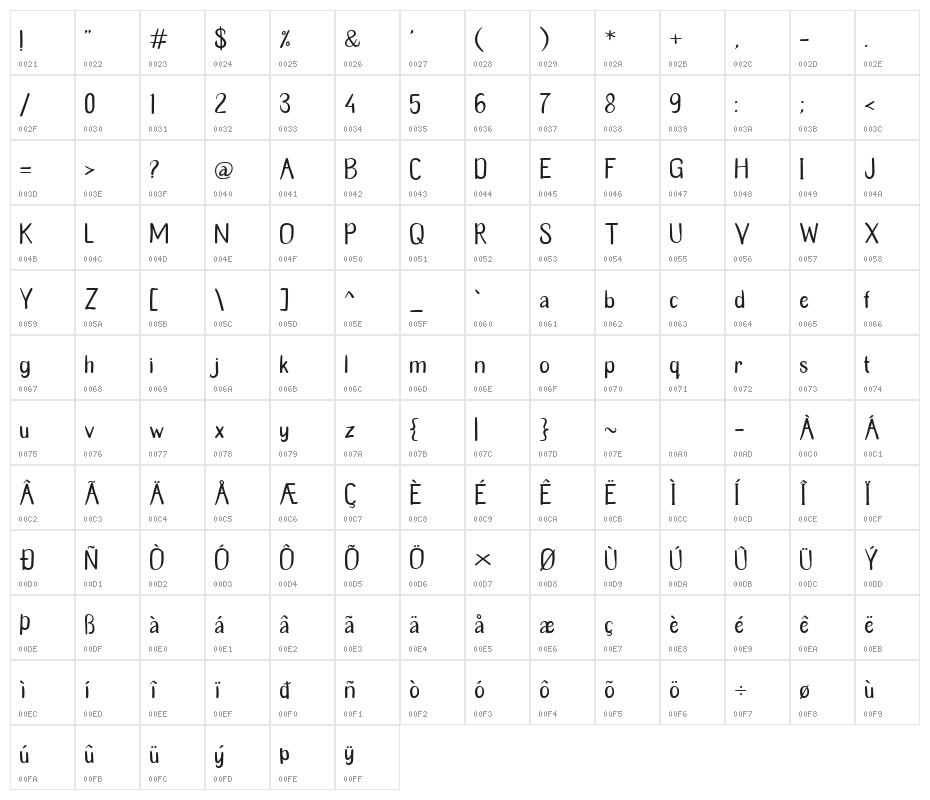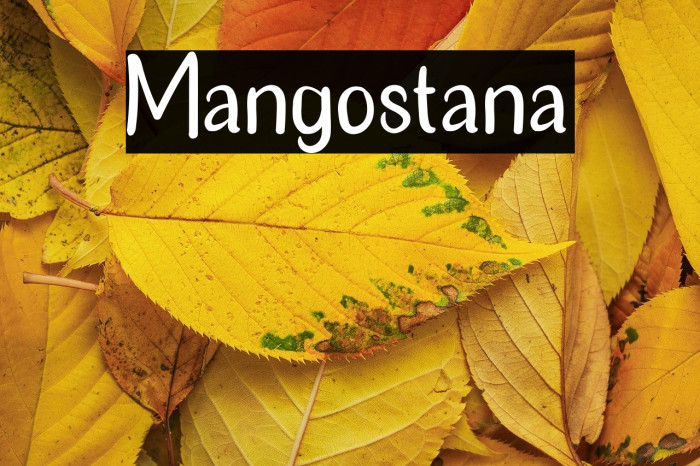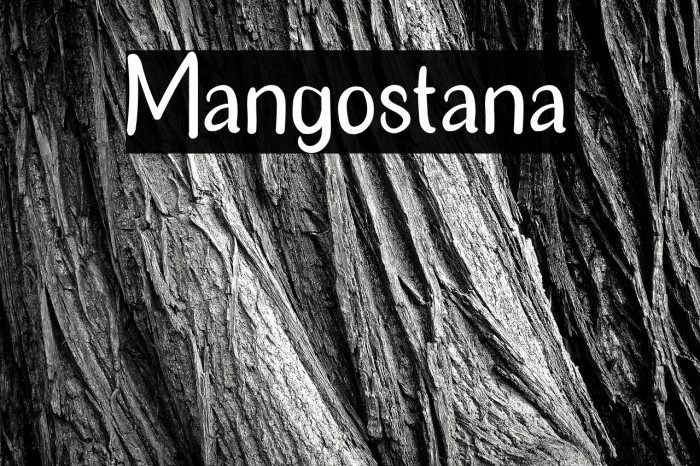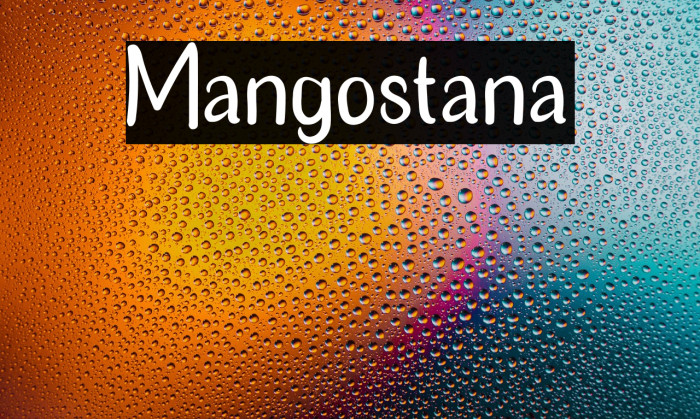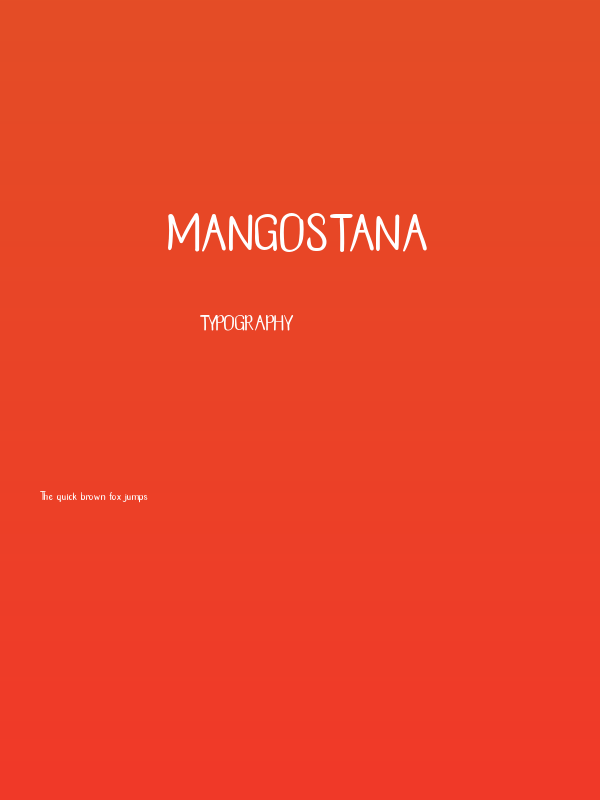
Mangostana Font
Mangostana Description
This font features a playful and casual style with slightly irregular strokes that give it a hand-drawn appearance. The letters are rounded and smooth, creating a friendly and approachable look. The uppercase characters are bold and prominent, while the lowercase letters maintain a consistent flow with a slightly whimsical touch. The numerals are clear and easy to read, matching the overall aesthetic of the font. Special characters are well-integrated, maintaining the same playful style. This font is versatile and can be used in a variety of creative projects.
| Use Case | Headlines, Logos, Casual Text |
| Proposed Projects | Ideal for children's books, casual invitations, greeting cards, and playful branding. |